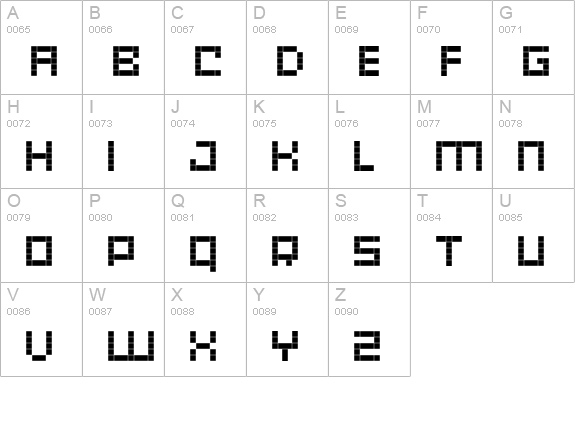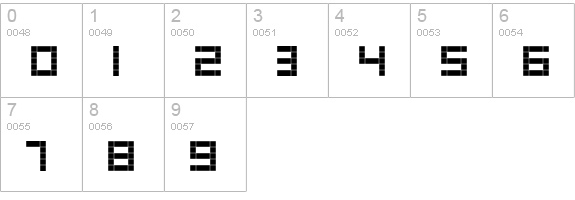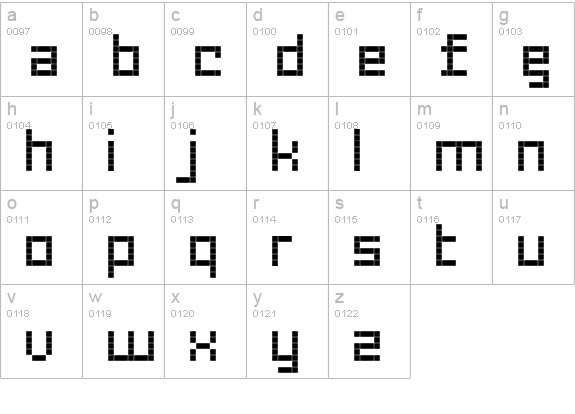
RiblahExtraBold Font Details
Introducing RiblahExtraBold, a captivating and commanding font that exudes strength and power. This typeface is the epitome of boldness, with its thick and robust letterforms that demand attention and make a lasting impression. RiblahExtraBold is perfect for projects that require a strong and confident typographic statement. Its strong vertical lines and sharp edges give it a modern and edgy feel, making it ideal for headlines, logos, and branding materials. Whether used in print or digital media, this font will leave a lasting impact on your audience. But what makes RiblahExtraBold even more appealing is that it is freely available to download at FontsMarket.com. Yes, you heard it right - this extraordinary font can be yours at no cost. We believe that great design shouldn't come with a price tag, and that's why we are thrilled to offer RiblahExtraBold as a free font to all our valued users. So, if you're looking for a font that embodies strength, grabs attention, and is freely accessible, look no further than RiblahExtraBold. Download it today at FontsMarket.com and unleash its power in your design projects.